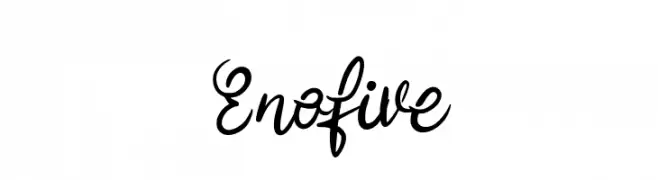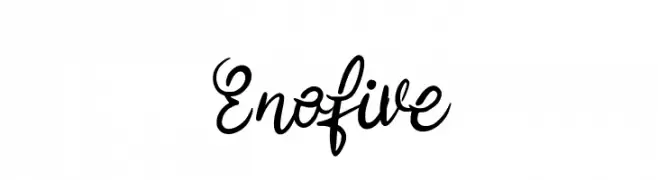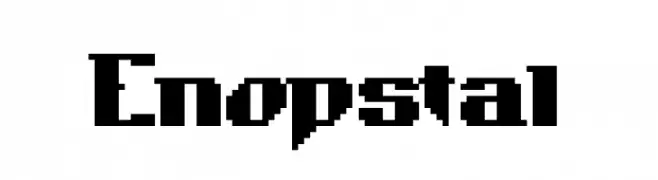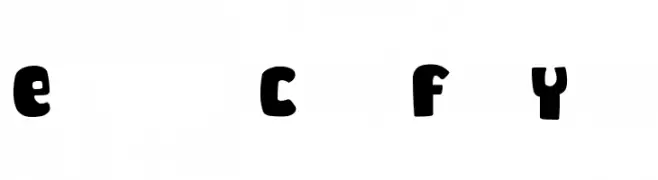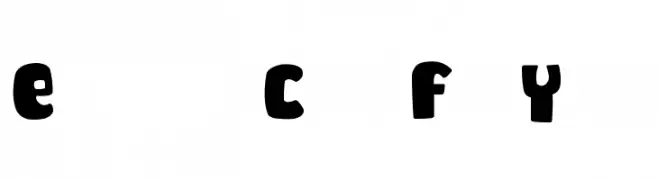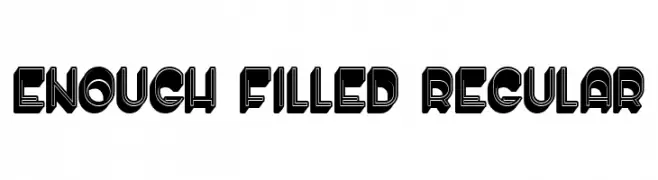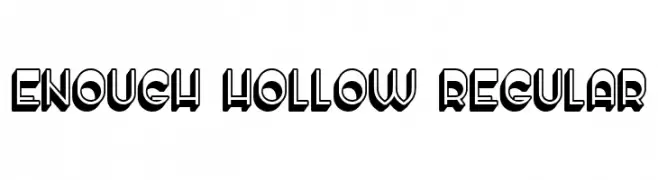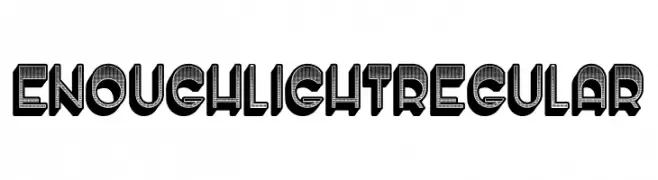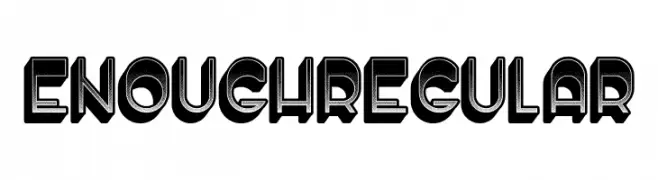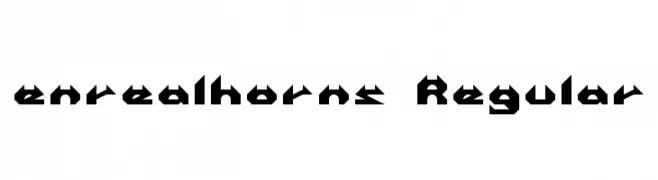
A mystical and decorative font with intricate, esoteric designs.
An elegant script font with smooth, connected letters and decorative flourishes.
A stylish and elegant script font with fluid, connected letters and a calligraphic flair.
A bold, angular font with a retro, digital aesthetic.
A playful, bold font with rounded, chunky letters.
A playful, bold font with rounded, chunky letters and a whimsical style.
A bold, geometric font with a filled, 3D appearance and sharp angles.
A bold, hollow, 3D-effect font with a modern and dynamic style.
A bold, geometric font with a 3D effect and textured grid pattern.
A bold, 3D geometric font with shadow effects and inline details.
A cursive, handwritten-style font with smooth, flowing strokes.
A bold serif font with a classic yet modern design, ideal for impactful text.
A modern serif font with elegant, readable letterforms and versatile design.
A bold, geometric font with sharp angles and a blocky, futuristic style.
A whimsical and artistic font with curvy, fluid strokes and dynamic character design.
A dynamic script font with elegant curves and a modern classic feel.
A hand-drawn, whimsical font with irregular strokes and a casual feel.
A playful handwritten font with thin, irregular strokes.
A sleek, minimalist font with thin, elongated letterforms and a modern aesthetic.
A modern, minimalist font with tall, narrow characters and thin strokes.
A sleek, italic font with elongated, thin characters and a modern aesthetic.
A sleek, italicized font with thin, elongated characters for a modern look.